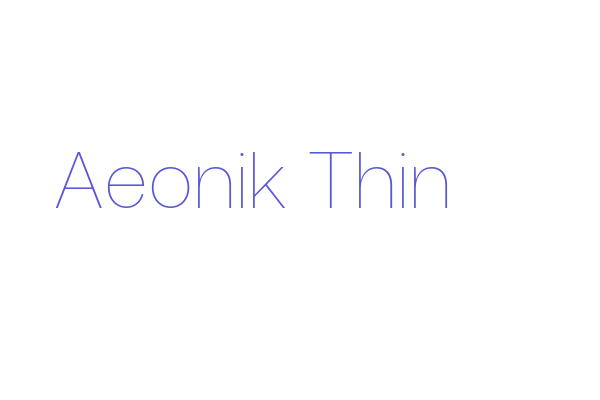
Aeonik Thin is a modern and sleek sans-serif font designed by Mark Bloom and Joe Leadbeater. Part of the Aeonik font family, it boasts a thin style that exudes elegance and sophistication. Ideal for minimalist designs, branding, and editorial projects, this font is perfect for creating a clean and contemporary look.
Font Name: Aeonik Thin
Designer: Mark Bloom and Joe Leadbeater
Font Family: Aeonik
Weight: Thin